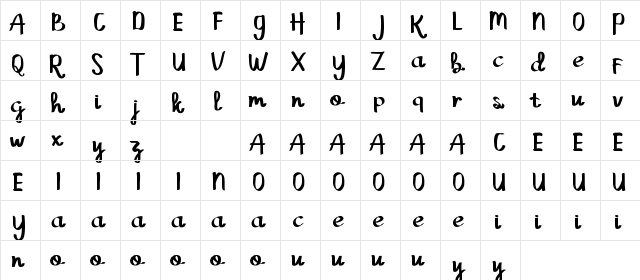
Grey Cloud Demo Regular
| Foundry | Edric Studio |
| Designer | Renata Insan & Sarah Suci P |
Design Context for Grey Cloud Demo Typeface
Grey Cloud Demo is a composed and adaptable typeface that performs quietly and consistently across a wide range of design contexts.